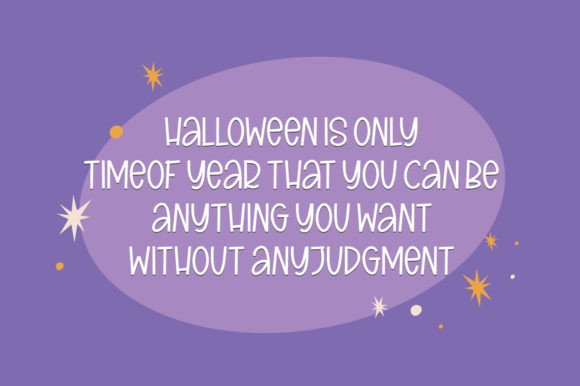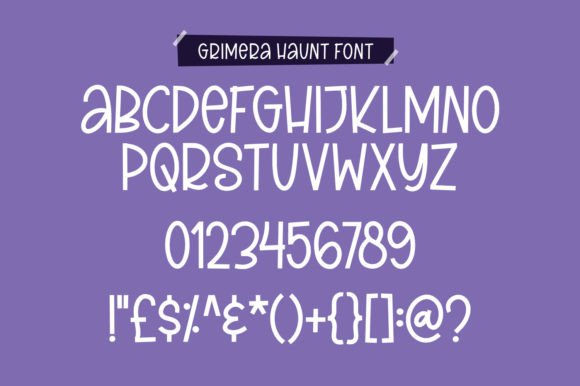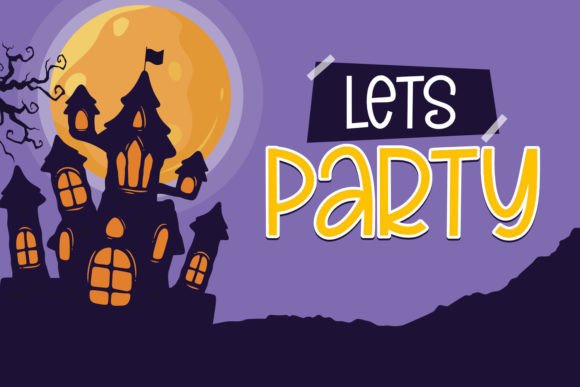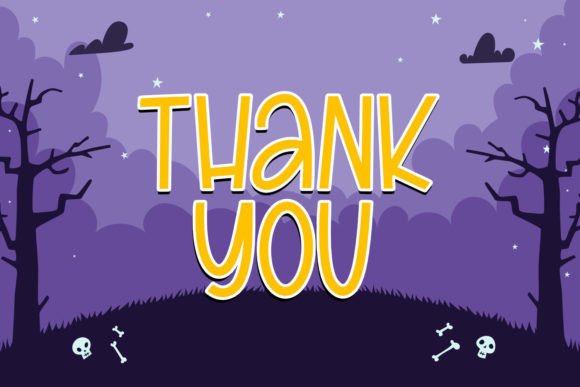
Unleash the Spooky Charm of Grimera Haunt Font: A Handwritten Masterpiece
Are you ready to add a dash of Halloween magic to your design projects? Look no further than the Grimera Haunt font, a unique and playful handwritten font that’s perfect for crafting spooky yet fun designs. In this article, we’ll dive into the world of Grimera Haunt, exploring its features, versatility, and the creative possibilities it offers for designers and crafters.
The Birth of Grimera Haunt: A Font with a Personality
Grimera Haunt is more than just a font – it’s a character in its own right. With its unorchestrated creation, this handwritten font exudes a charming, imperfect charm that’s impossible to resist. Each letter and stroke has been carefully crafted to bring forth a sense of fun and spookiness, making it the perfect addition to any design project that requires a touch of whimsy.
Key Features of Grimera Haunt Font
- Handwritten with love: Grimera Haunt boasts a beautiful, handwritten aesthetic that’s full of personality and character.
- Halloween magic: This font is infused with a touch of Halloween spirit, making it perfect for seasonal designs, invitations, and decorations.
- Versatile and adaptable: Use Grimera Haunt on a variety of design materials, from merchandise and invitations to digital canvases and stickers.
- Unique and quirky: This font’s unorchestrated creation gives it a one-of-a-kind charm that’s sure to make your designs stand out.
Creative Possibilities with Grimera Haunt
So, how can you use Grimera Haunt to elevate your design projects? The possibilities are endless! Here are a few ideas to get you started:
- Merchandise magic: Add a touch of Grimera Haunt to your t-shirts, mugs, and other merchandise for a unique and eye-catching design.
- Spooky invitations: Create hauntingly beautiful invitations for Halloween parties, spooky gatherings, or other themed events.
- Digital art: Use Grimera Haunt to add a playful touch to your digital art, illustrations, and graphics.
- Sticker fun: Design stickers, labels, and other adhesive goodies with Grimera Haunt for a fun and playful look.
Why Designers and Crafters Love Grimera Haunt
So, what makes Grimera Haunt a favorite among designers and crafters? Here are just a few reasons:
- Easy to use: This font is simple to incorporate into your design projects, making it accessible to designers of all skill levels.
- Highly versatile: Grimera Haunt can be used on a wide range of design materials, from paper crafts to digital projects.
- Unique aesthetic: This font’s quirky, handwritten charm sets it apart from more traditional fonts, adding a touch of personality to your designs.
Tips for Getting the Most out of Grimera Haunt
To make the most of Grimera Haunt, try these expert tips:
- Experiment with colors: Combine Grimera Haunt with a range of colors to create a unique and eye-catching design.
- Play with textures: Add depth and interest to your designs by pairing Grimera Haunt with different textures and patterns.
- Mix and match: Combine Grimera Haunt with other fonts and design elements to create a truly one-of-a-kind look.
In conclusion, Grimera Haunt is a one-of-a-kind font that’s sure to add a touch of Halloween magic to your design projects. With its unique, handwritten aesthetic and versatile design, this font is perfect for designers and crafters looking to create fun, spooky, and eye-catching designs. So why wait? Embrace Grimera Haunt and let it add a delightful sprinkle of fright to your design endeavors!